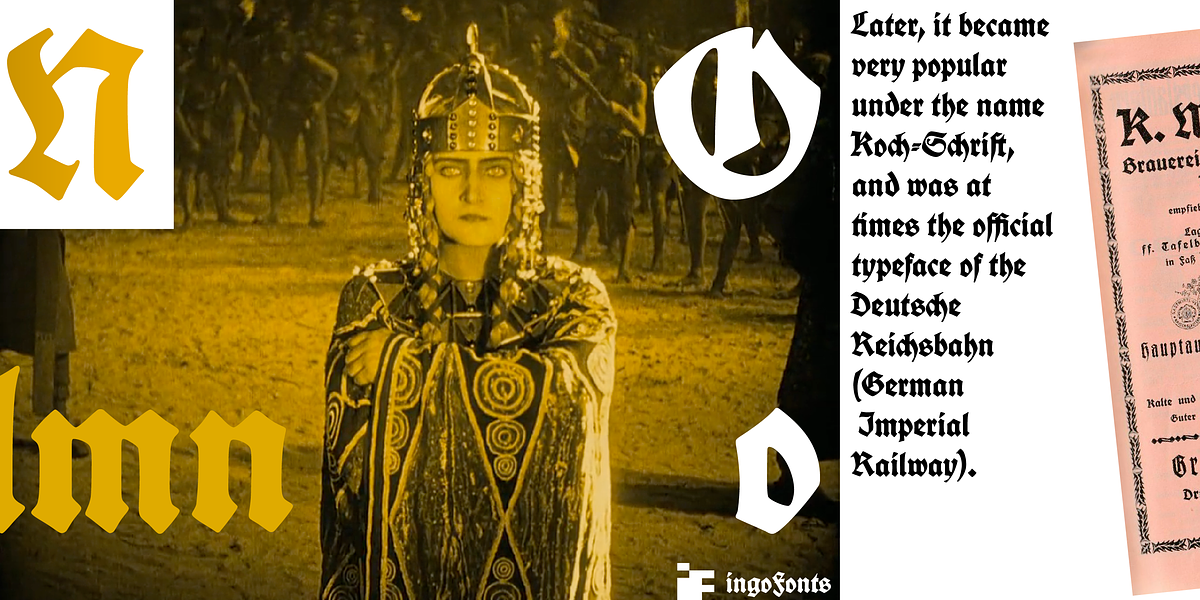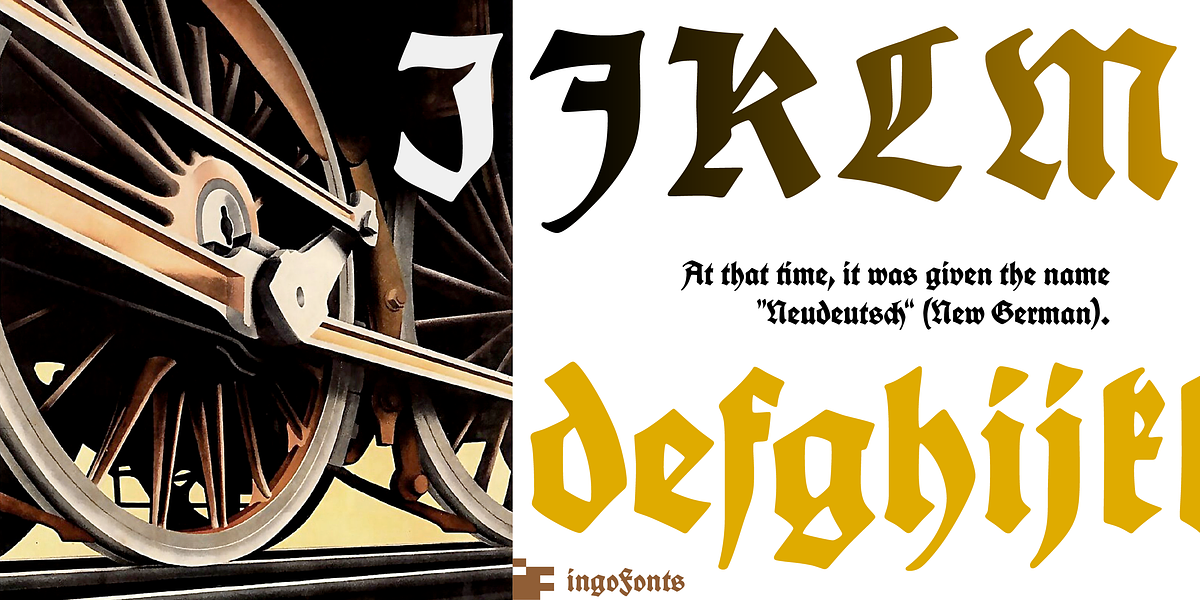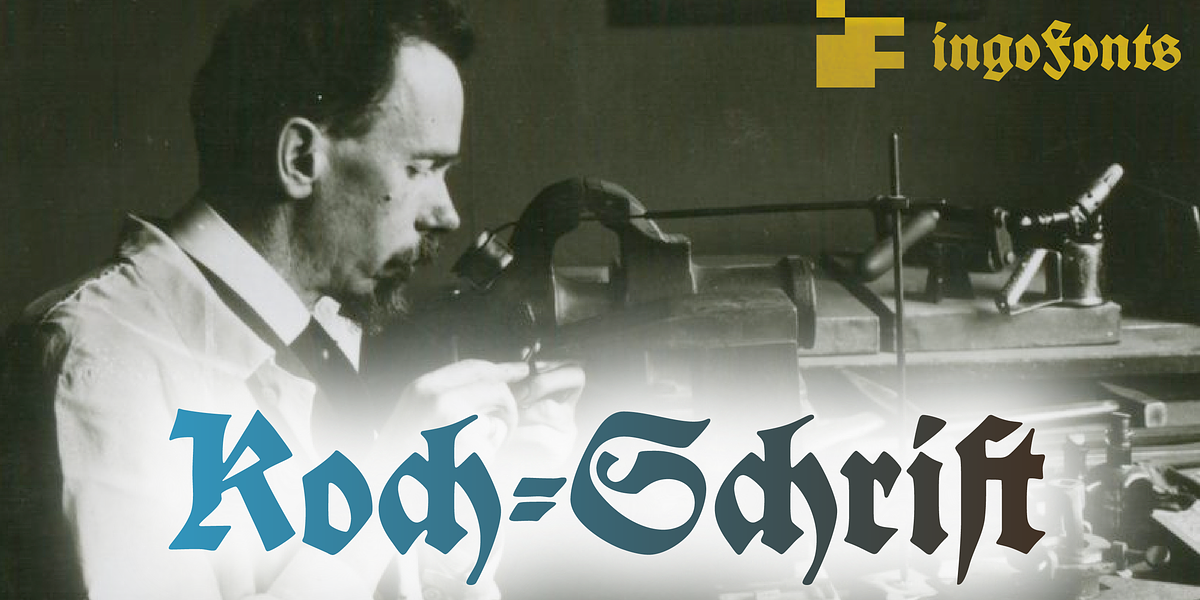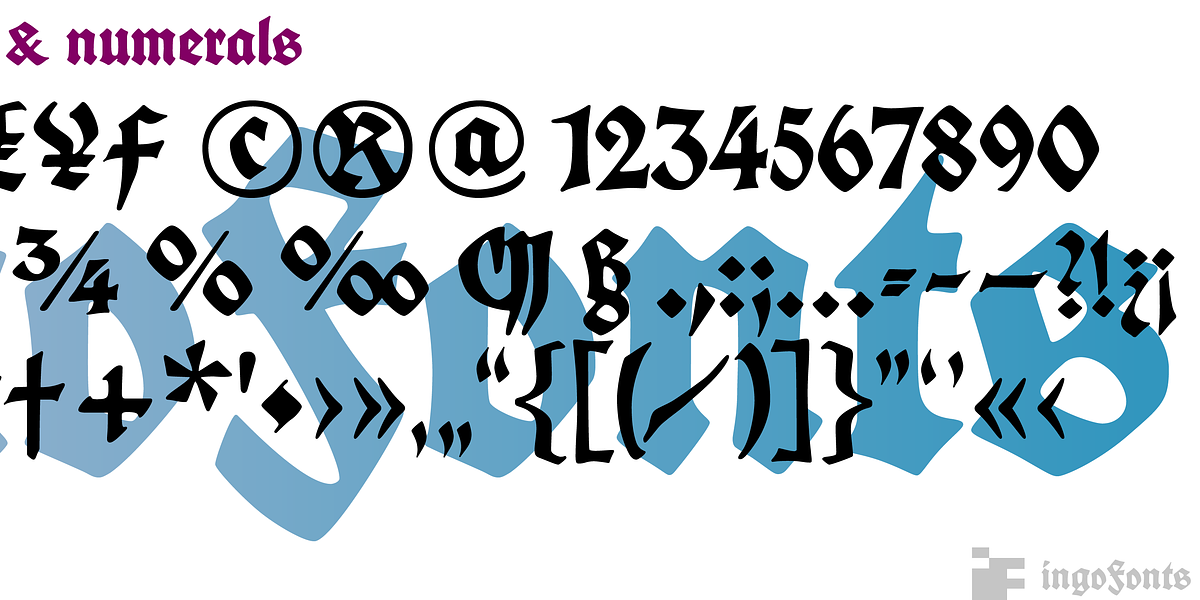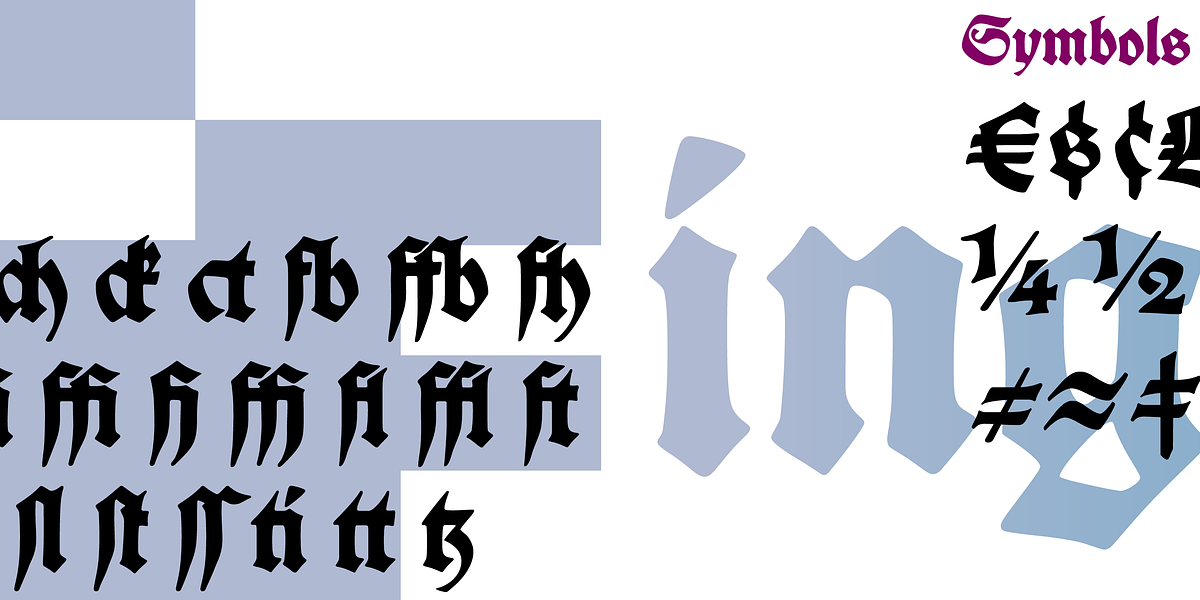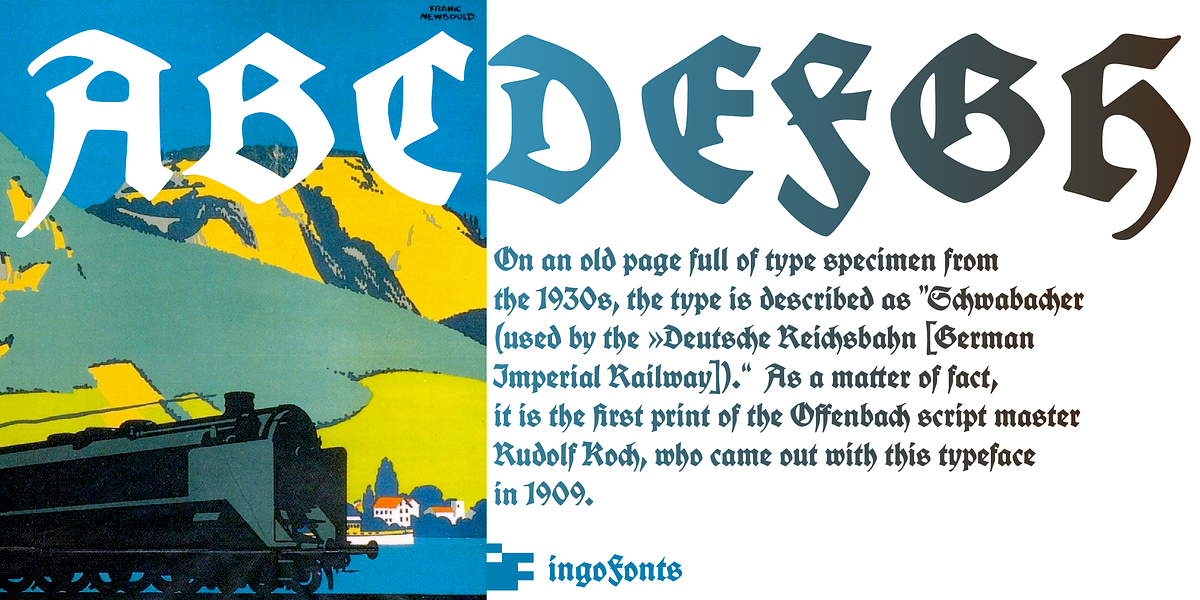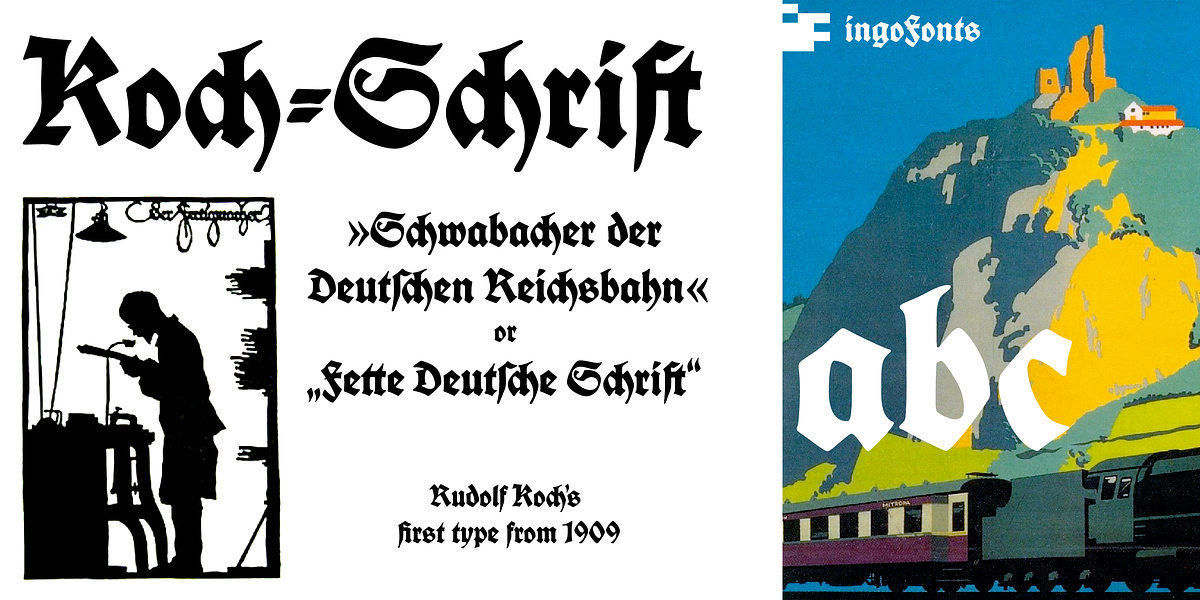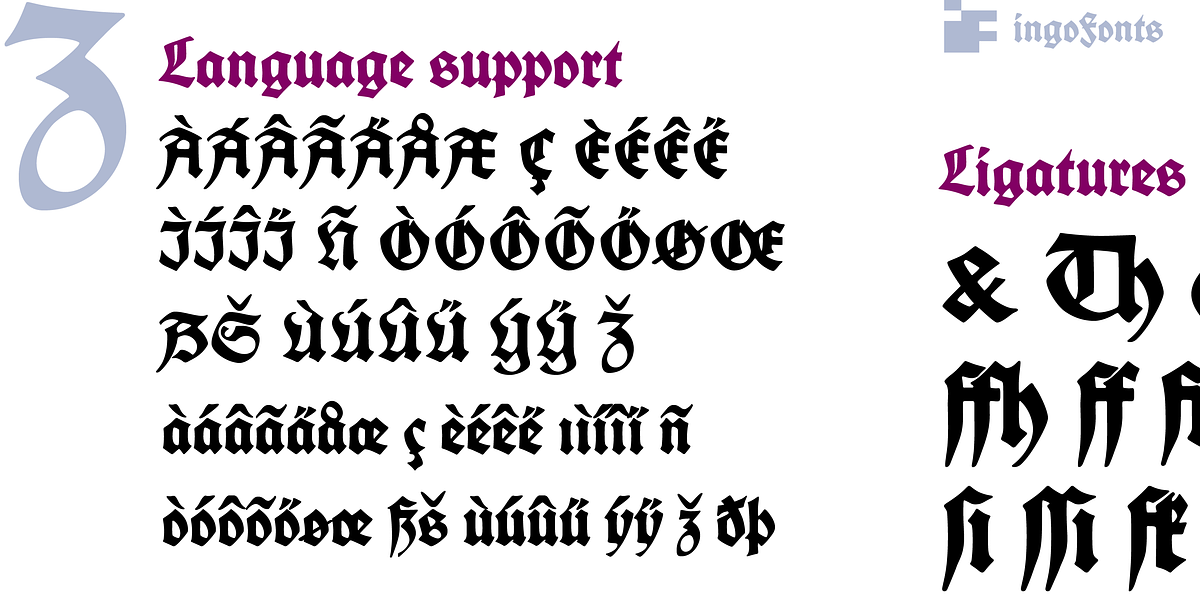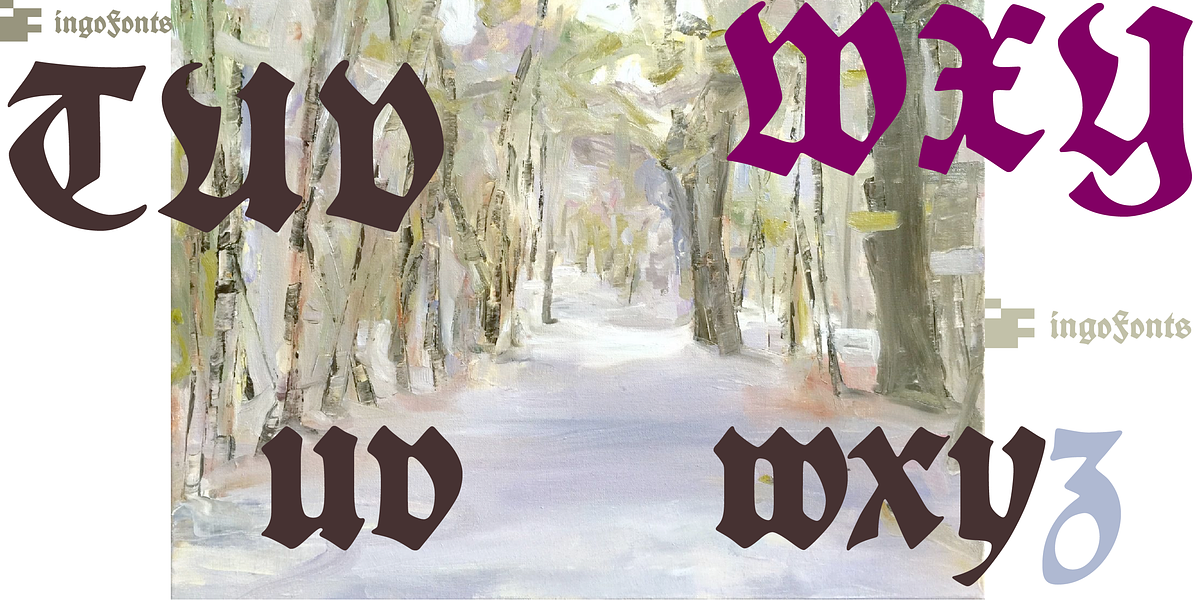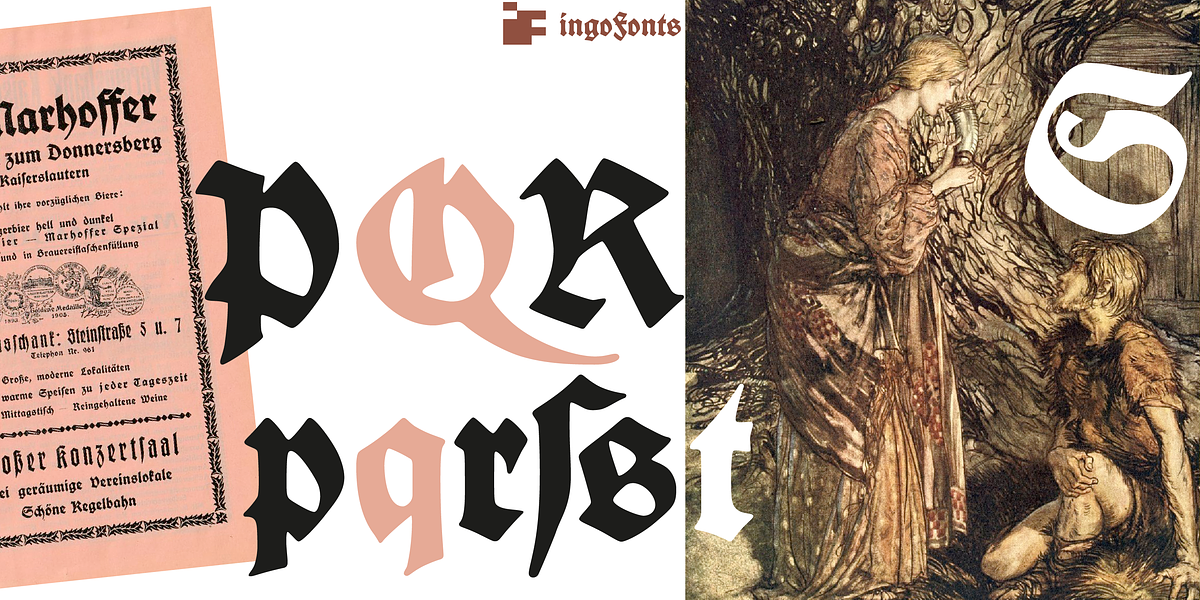
Koch Schrift
This calligraphic blackletter font is a classic design by Rudolf Koch, first released in 1909. Originally named 'Neudeutsch' (New German), it later became known as Koch-Schrift and was even adopted as the official script of the Deutsche Reichsbahn (German Imperial Railway). The font's bold strokes and ornate details evoke a sense of tradition and formality, making it well-suited for headlines, branding, and historical documents.